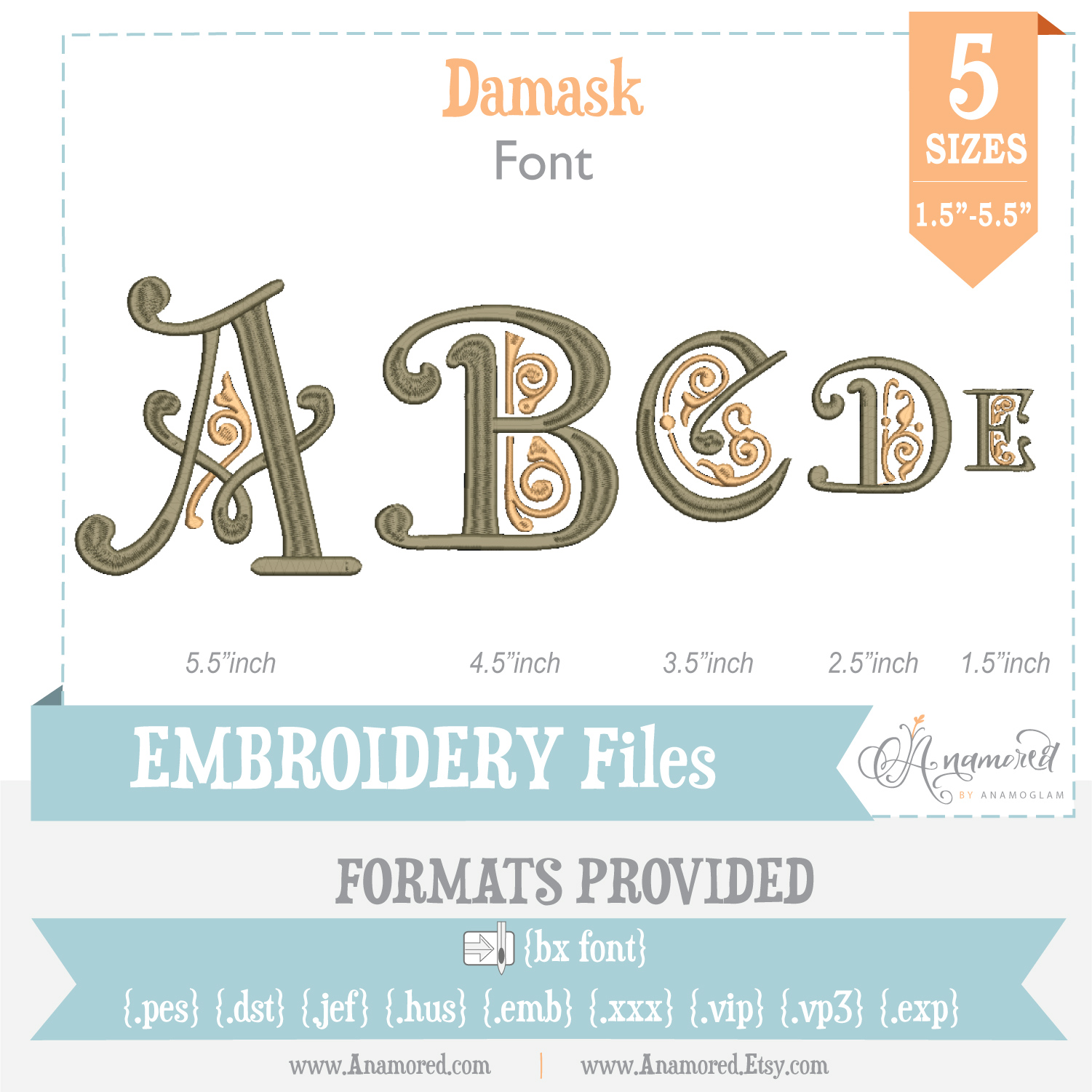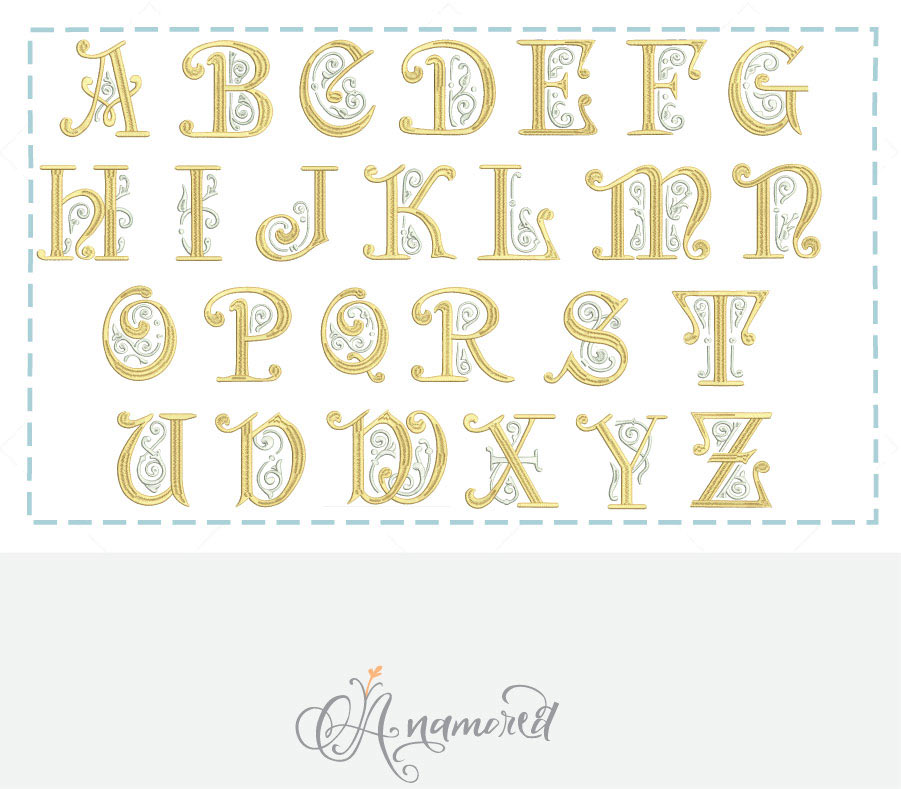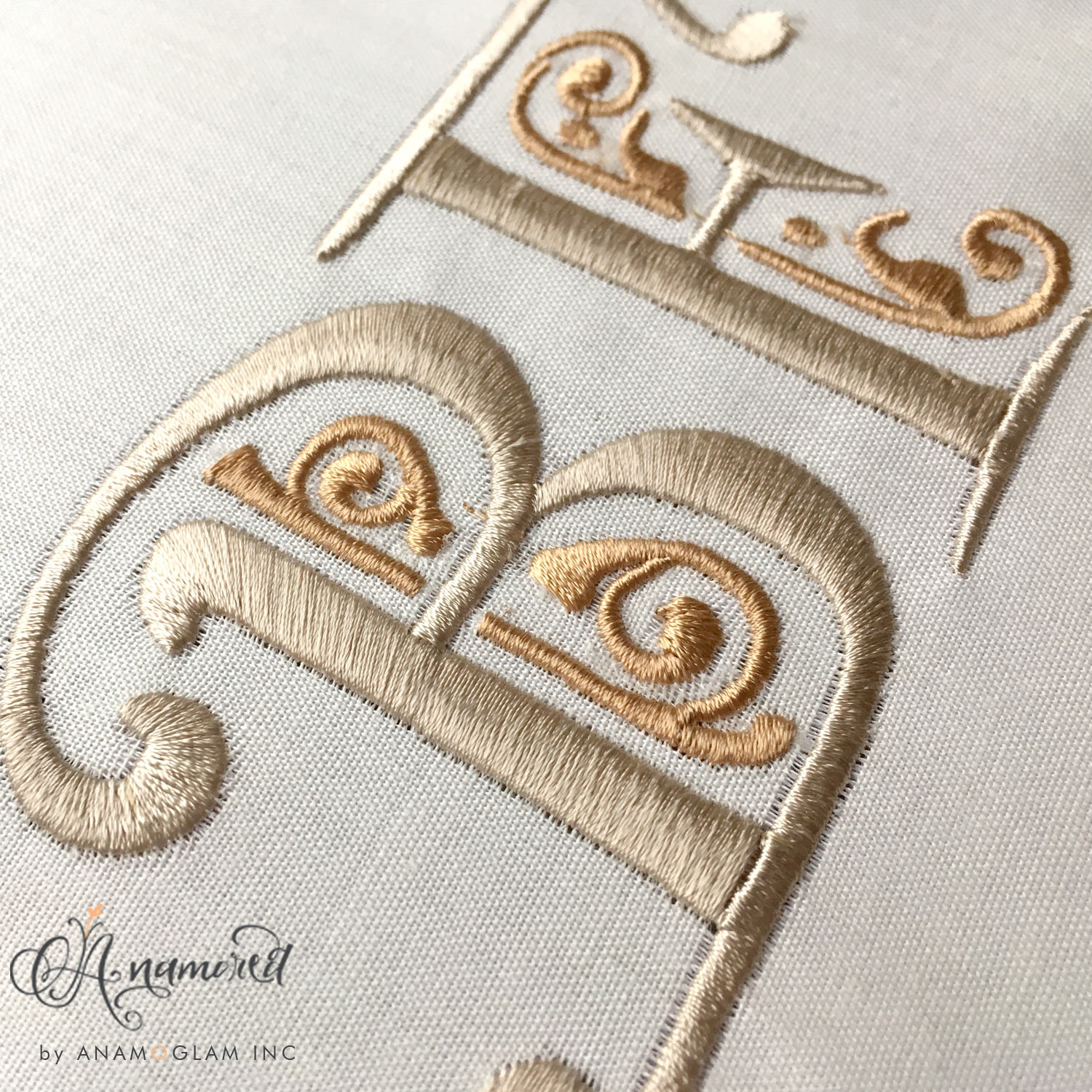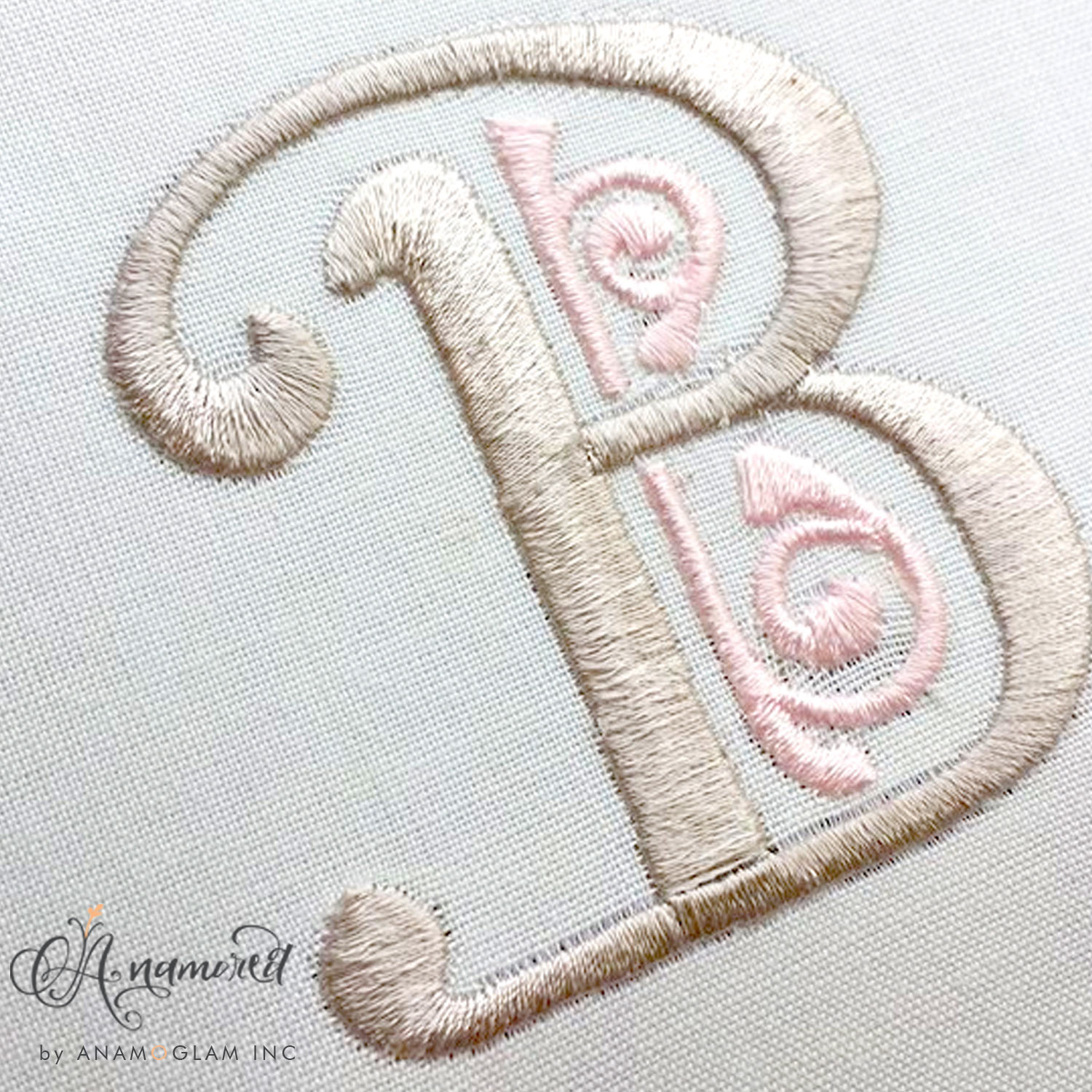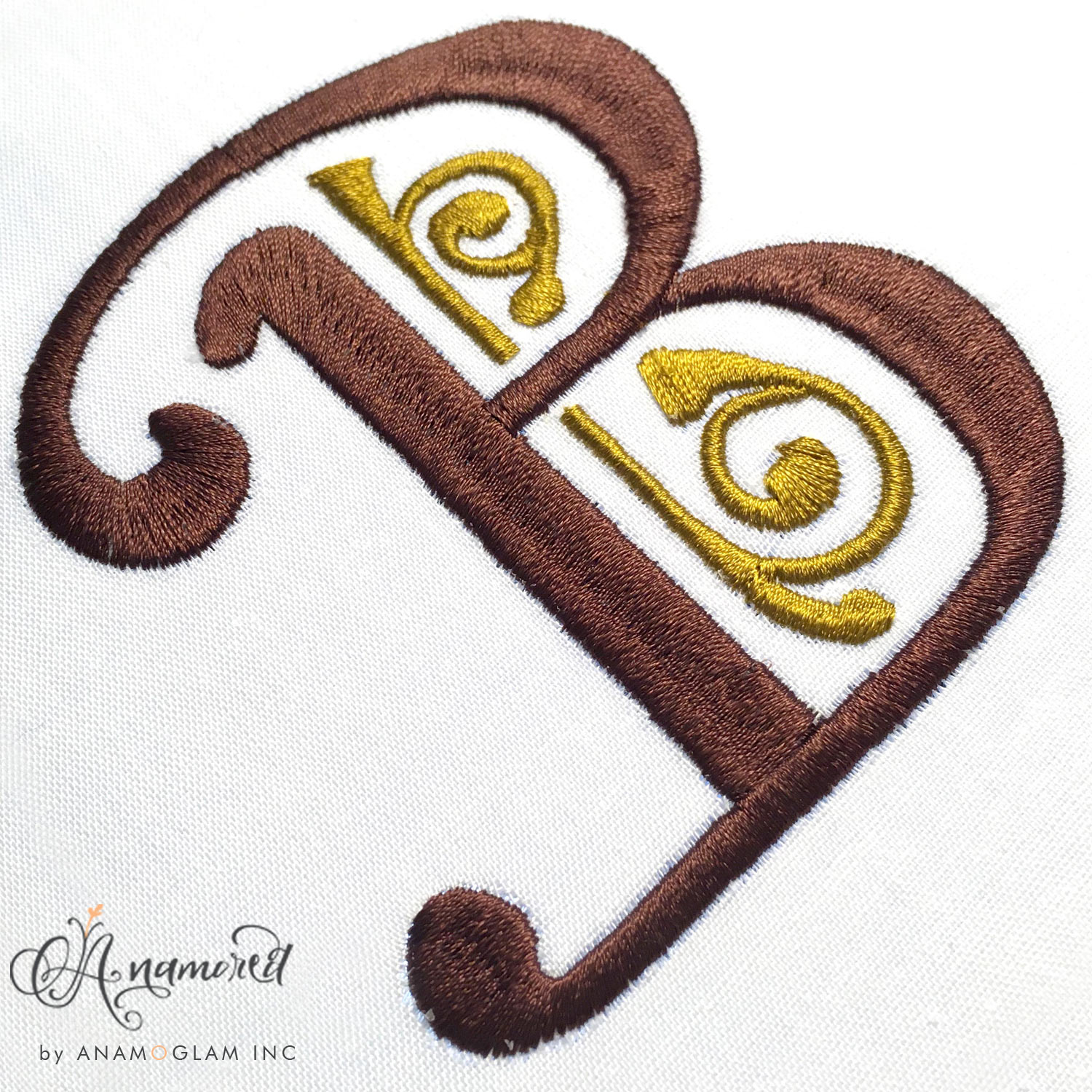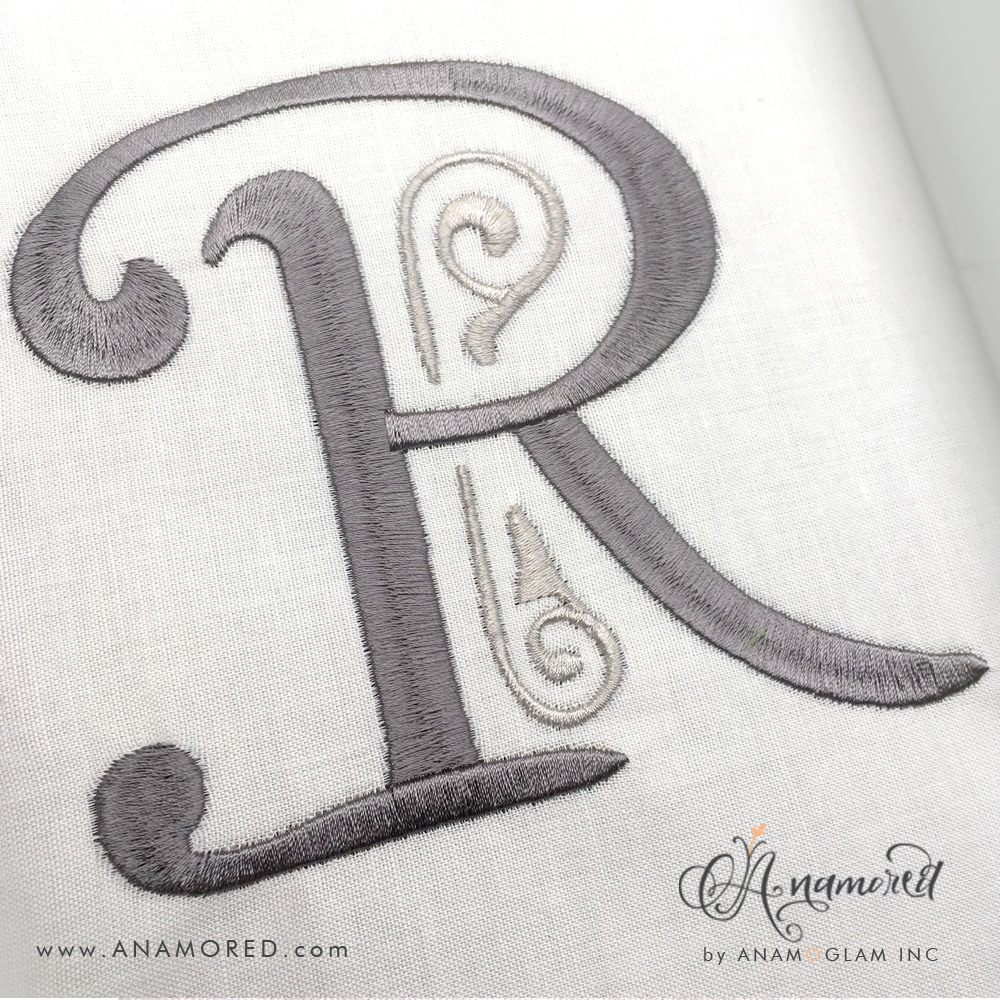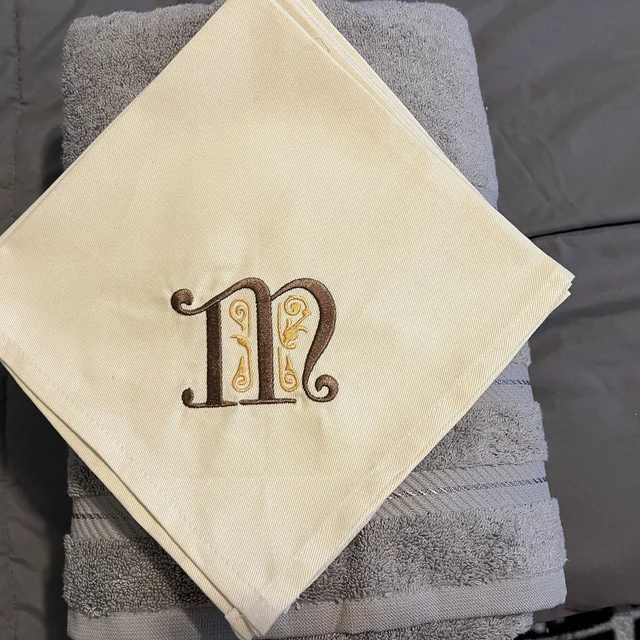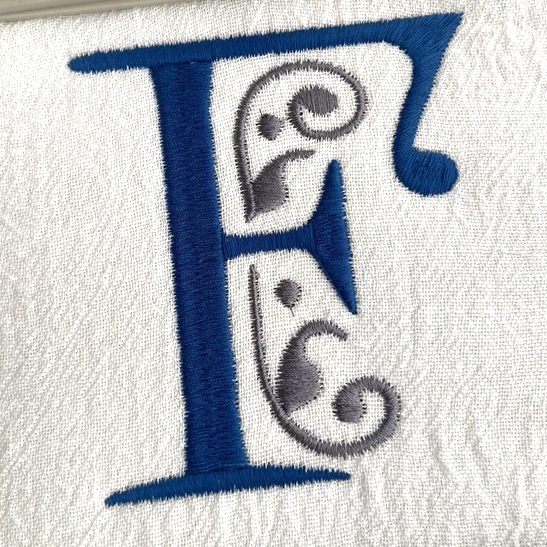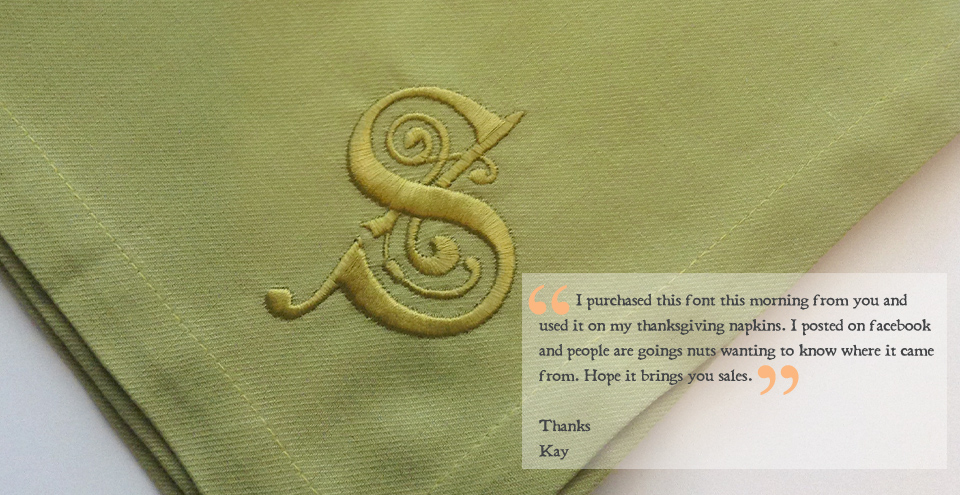
Damask Swirl Embroidery Alphabet/Font for monograms. 2 color stops.
5 sizes.
1.5″ , 2.5″, 3.5″, 4.5″ and 5.5″Â (based off height)
Includes 26 capital letters only. Satin stitch.